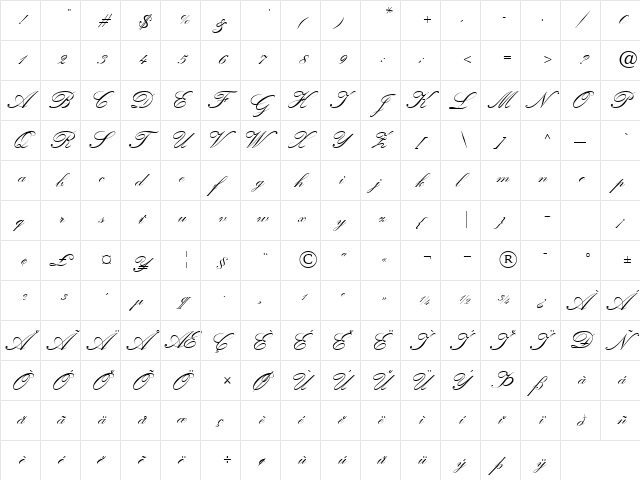
GE Quilt Script Normal
Design Context for GE Quilt Script Typeface
GE Quilt Script brings a calligraphic fluidity to the page — its connecting strokes and expressive curves give it an unmistakably human quality.
Font Pairing: Combine GE Quilt Script with a simple geometric sans for maximum contrast — the tension between flowing curves and clean structure is a classic typographic pairing.
Pro Tip: Use GE Quilt Script for short runs of text — names, titles, or taglines. Extended body copy in script faces tires the eye quickly.